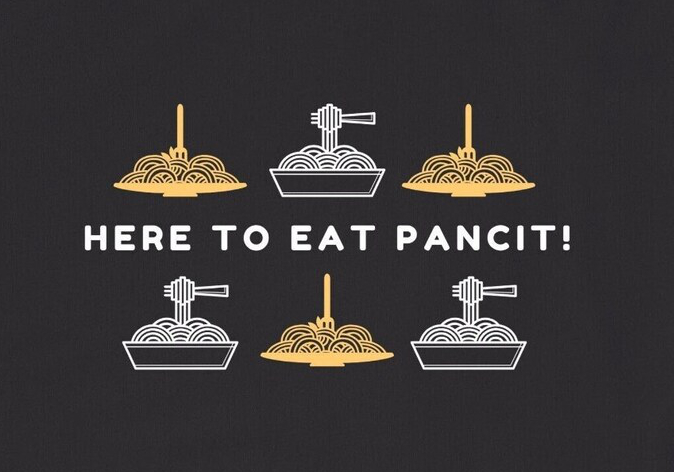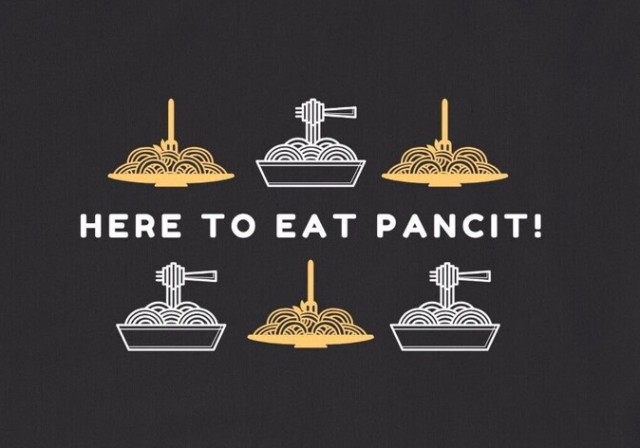
Looks like a bold or heavier rounded edge sans serif, text says, "HERE FOR THE PANCIT!", found on Etsy
I think it’s
Fredoka One
Fredoka
on Google Fonts doesn’t match.